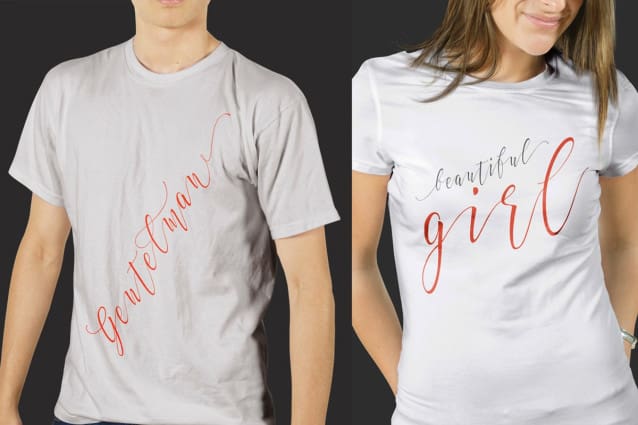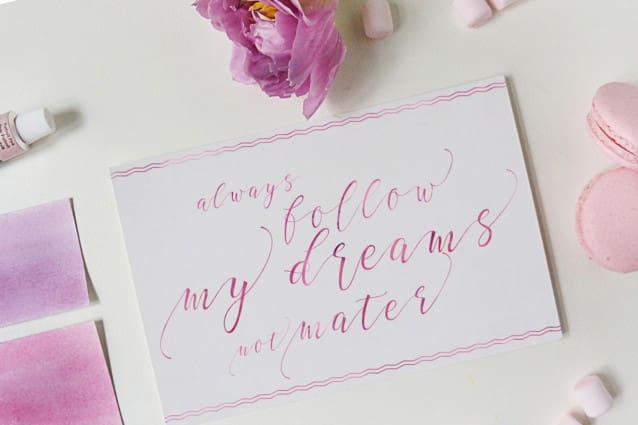
Elastic Calligraphy Font
Elastic Calligraphy Font is Modern Calligraphy. This font was designed by handwriting, and it has a modern and unique forms of calligraphy, the writing style is very natural.